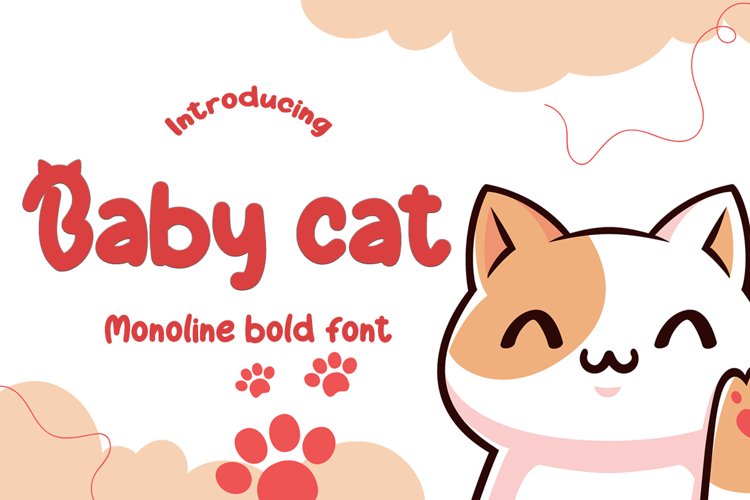
Simple stylish
The Baby cat Display font is a stunning typeface that exudes playfulness and vibrancy. Its charming characters are complemented by elegant swashes, adding a touch of flair to your designs. Perfect for eye-catching headlines, branding, and creative projects, this font is a delectable choice for those seeking a beautiful and captivating display font.